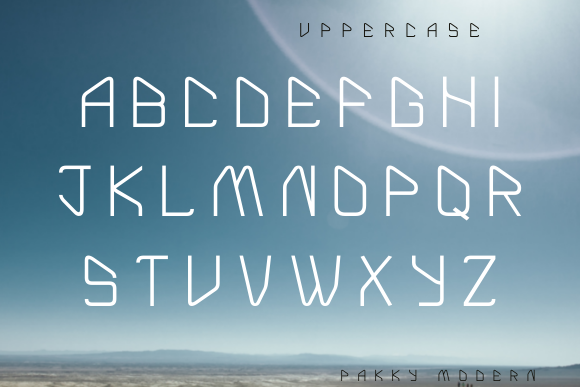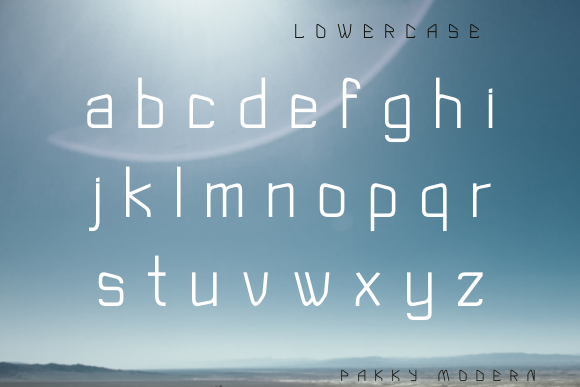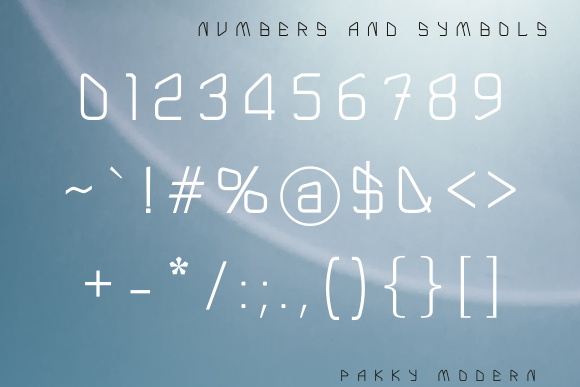
Introduction to Pakky Modern Font
Pakky Modern is a fresh, unique and modern display font.
Whether you’re using it for creative ideas, digital design, presentations, cards, this quirky font is a wonderful choice .
Why Choose Pakky Modern Font?
Pakky Modern Font offers exceptional quality and versatility, making it a valuable addition to your design toolkit. Whether you’re creating for personal projects or commercial use, Pakky Modern Font delivers professional results.